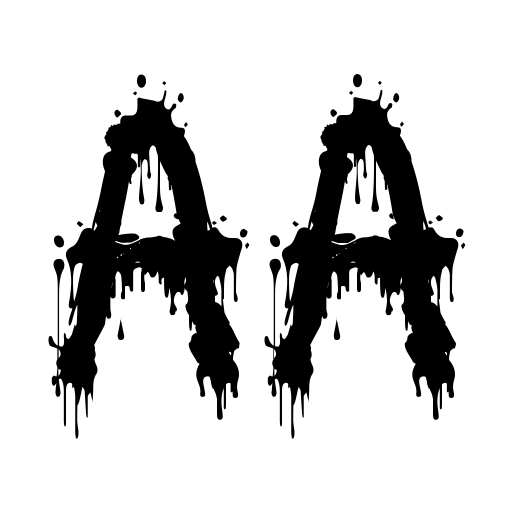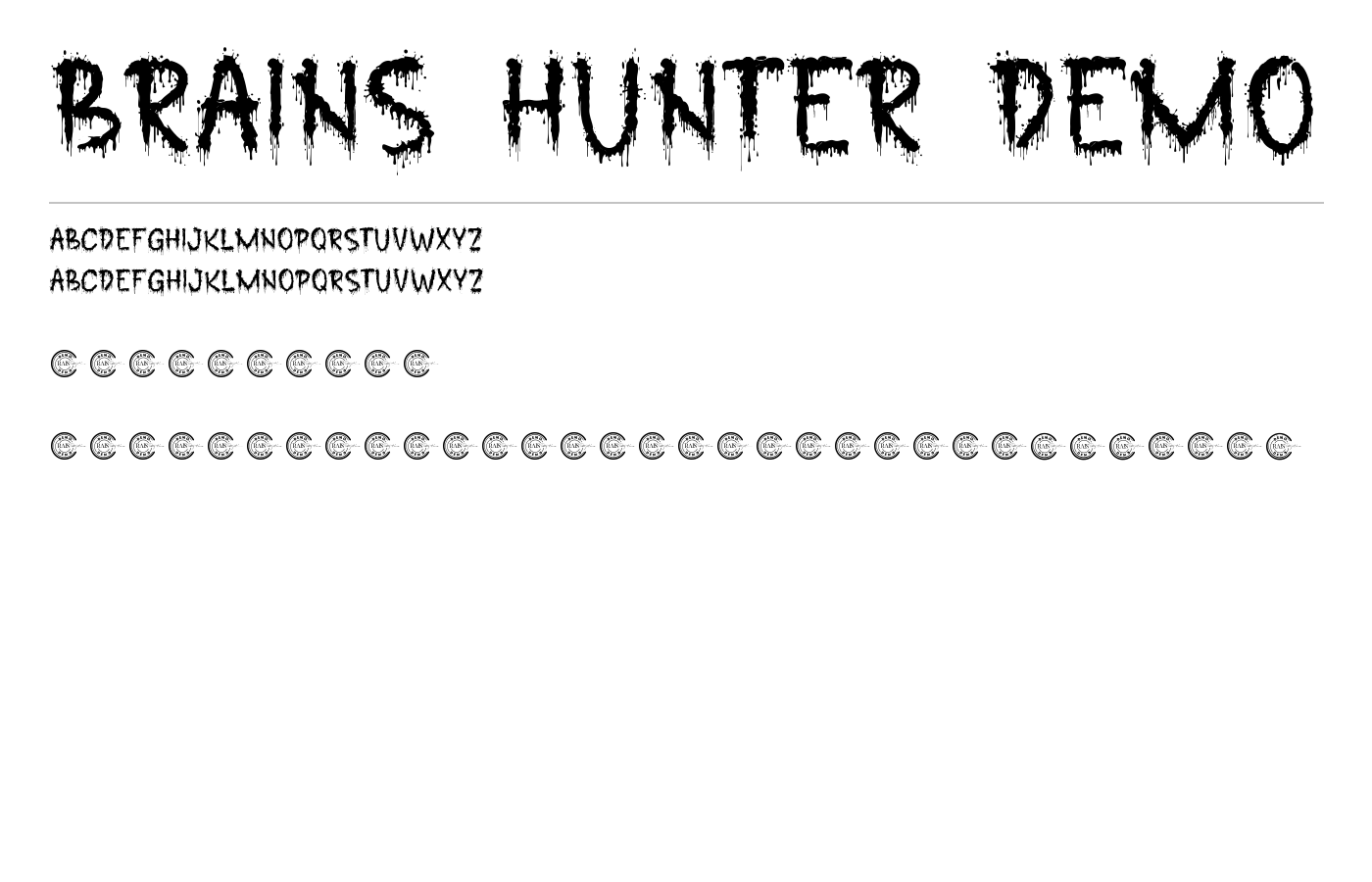
Brains Hunter Demo is a bold, distressed display font with a spooky, dripping effect that creates a strong, eerie atmosphere. Its irregular, rough edges and tall, narrow letterforms make it perfect for horror-themed designs, Halloween projects, or any creative work needing a dramatic, unsettling style. This font works best in headlines, posters, and branding where a bold, eye-catching impact is desired.
Brains Hunter Demo Font
About Brains Hunter Demo Font
| Font family | Brains Hunter Demo Font |
| Designer | Shalsha & Suci Anita |